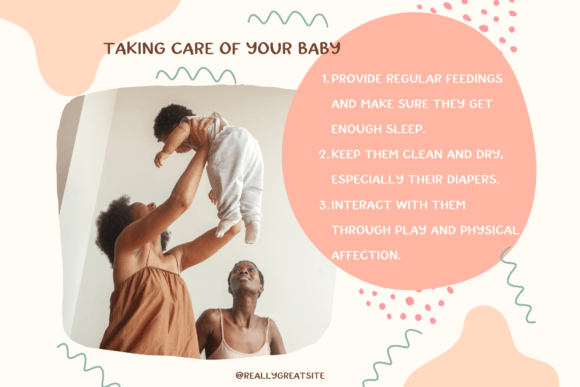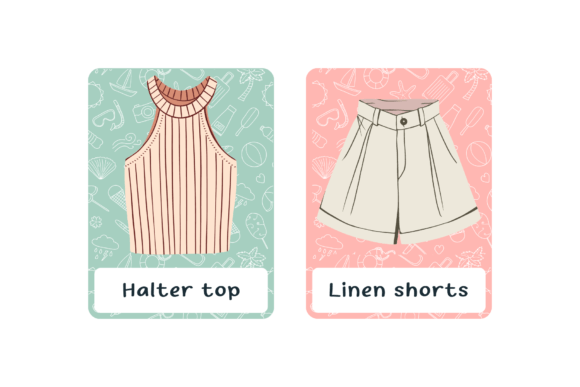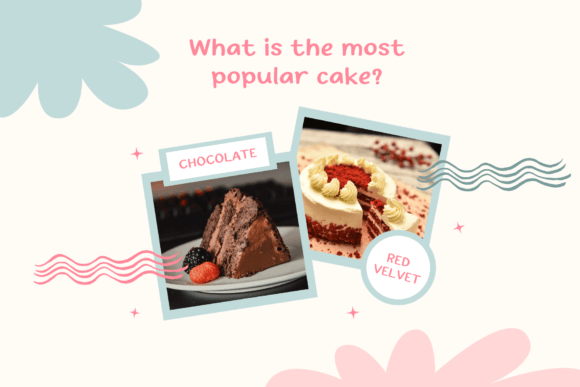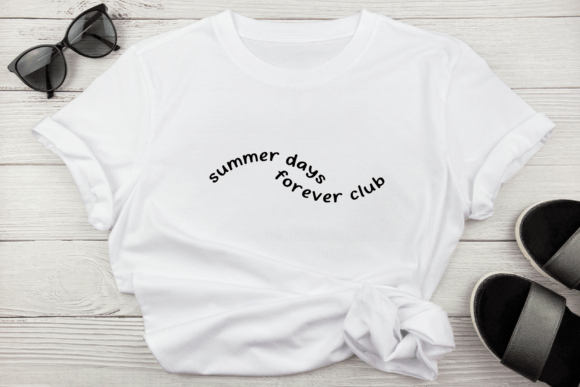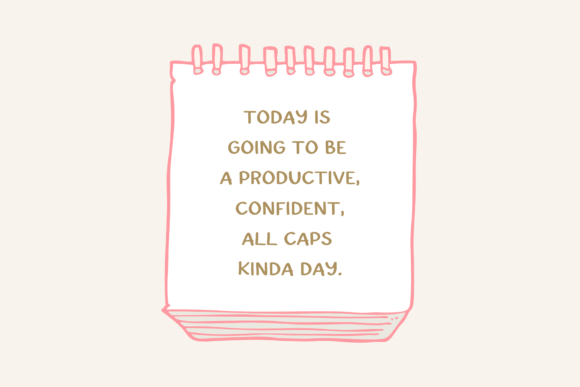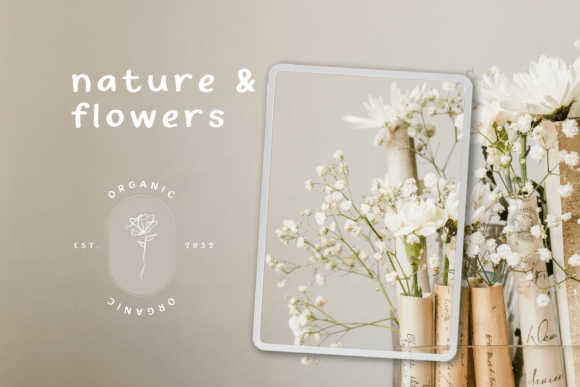
Fruitcake Font: The Perfect Addition to Your Digital Creations
Are you tired of using the same old fonts in your digital planner, journal, invitations, or notes? Look no further than the Fruitcake Font! This delightful font is designed to add a touch of whimsy and personality to any digital creation, giving it a handwriting look that’s sure to impress.
What is Fruitcake Font?
Fruitcake Font is a unique and charming font that’s perfect for adding a personal touch to your digital creations. With its playful and cursive script, it’s ideal for making your digital planner, journal, or invitations stand out from the crowd. Whether you’re a designer, crafter, or simply someone who loves to add a creative touch to their digital content, Fruitcake Font is a must-have.
Uses for Fruitcake Font
You can use Fruitcake Font to jazz up a variety of digital creations, including:
• Digital planners: Add a personal touch to your daily or weekly planner with Fruitcake Font.
• Journals: Make your digital journal more visually appealing with this charming font.
• Invitations: Create custom invitations for parties, weddings, or other special events with Fruitcake Font.
• Note-taking: Add a creative touch to your digital notes with this fun and playful font.
• Anything that requires a handwriting look: Fruitcake Font is perfect for adding a personal touch to any digital creation.
Why Choose Fruitcake Font?
So why choose Fruitcake Font over other fonts? Here are just a few reasons:
• Unique and eye-catching: Fruitcake Font is a one-of-a-kind font that’s sure to grab attention.
• Easy to read: Despite its playful script, Fruitcake Font is easy to read and understand.
• Versatile: Fruitcake Font can be used in a variety of digital creations, from planners and journals to invitations and notes.
• Customizable: You can use Fruitcake Font in a variety of colors and sizes to fit your design needs.
Tips for Using Fruitcake Font
Here are a few tips for getting the most out of Fruitcake Font:
• Use it sparingly: While Fruitcake Font is fun and playful, it can be overwhelming if used too much. Use it sparingly to add a touch of personality to your digital creations.
• Pair it with other fonts: Fruitcake Font pairs well with a variety of other fonts, including serif and sans-serif fonts.
• Experiment with colors: Fruitcake Font looks great in a variety of colors, from bright and bold to soft and pastel.
Font Name Fruitcake Font
Author Cotton White Studio
In conclusion, Fruitcake Font is a unique and versatile font that’s perfect for adding a personal touch to your digital creations. With its playful and cursive script, it’s ideal for making your digital planner, journal, invitations, or notes stand out from the crowd. Whether you’re a designer, crafter, or simply someone who loves to add a creative touch to their digital content, Fruitcake Font is a must-have.